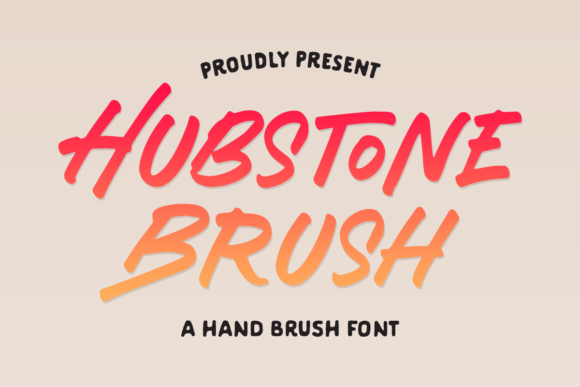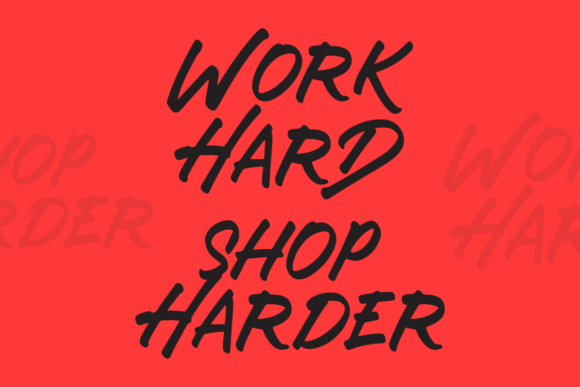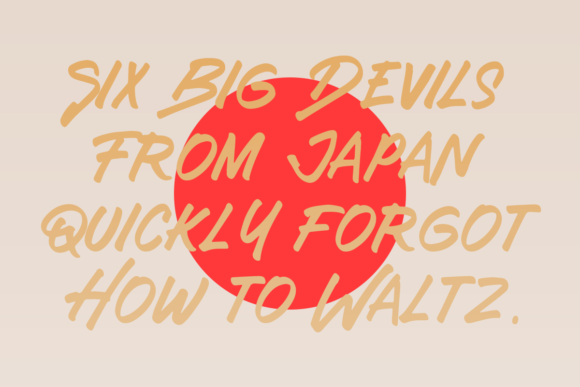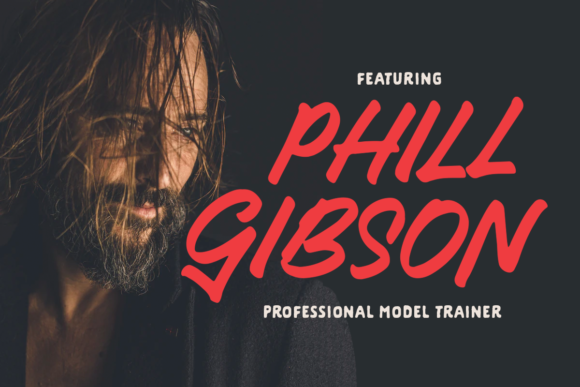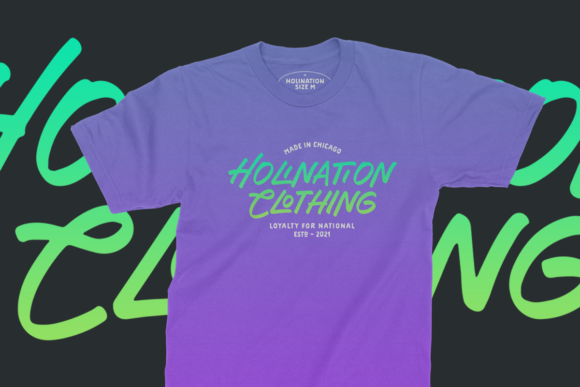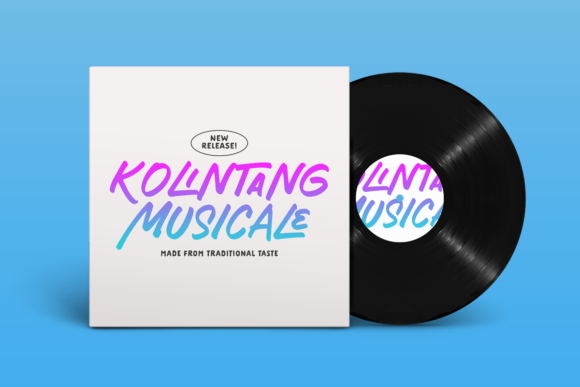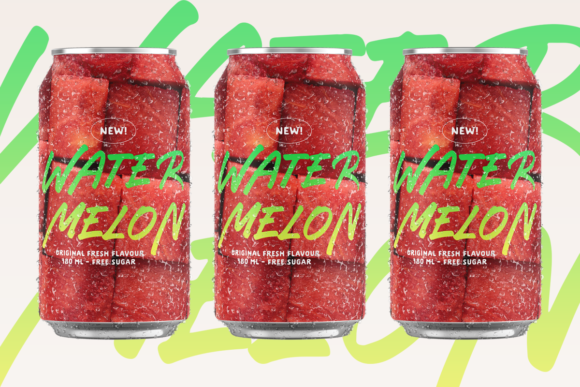
Unleash the Urban Vibes: Elevate Your Designs with Hubstone Brush Font
Have you ever stared at a blank canvas, waiting for the perfect font to spark your creativity? That’s exactly what happened to me last week, and I stumbled upon a game-changer – the Hubstone Brush Font. Its unique blend of urban charm and modern flair instantly captured my attention, and I knew I had to learn more.
Hubstone Brush Font is a cool, urban-styled, brushed display font that brings any design to life. Whether you’re working on a casual blog post, a social media campaign, or a flyer for a local event, this font adds a touch of sophistication and playfulness that’s hard to resist. As a designer, you’ll appreciate the versatility and expressiveness of Hubstone Brush Font, making it an invaluable addition to your toolkit.
Hubstone Brush Font Key Features
- Font Family: Hubstone Brush Font is a hand-drawn, brush-style font that offers a unique and creative look for various designs.
- Character Set: The font includes a wide range of characters, including uppercase and lowercase letters, numbers, punctuation marks, and special characters.
- Unique Characteristics: The font’s brush-style design and subtle imperfections give it a hand-crafted look, adding a touch of personality to any design.
Hubstone Brush Font Review
Overall, I think the Hubstone Brush Font has some great qualities that make it a solid choice for designers. ✨ Its unique, hand-drawn feel gives it a lot of character and personality, which can really make your designs stand out.
Here are some of the things I think work well:
- ✨ The font’s irregularities and imperfections add a touch of humanism that’s hard to replicate with more precise fonts.
- ✨ The font is highly customizable, with a wide range of weights and styles to choose from.
- ✨ The font is also highly legible, even at smaller sizes, which is essential for any design project.
- ⚠️ The font may not be suitable for projects that require a high level of precision or uniformity, such as technical writing or financial documents.
- ⚠️ The font’s unique feel may not be to everyone’s taste, and some users may find it distracting or hard to read.
Overall, I think the Hubstone Brush Font is a great choice for designers who want to add some personality to their projects. Just be aware of its limitations and make sure it’s the right fit for your specific needs.
Hubstone Brush Font is ideal for:
1. Creating hand-drawn or watercolor-style text.
2. Adding a touch of elegance to invitations, wedding designs, or other special occasion graphics.
3. Creating custom logos or branding materials.
Alternatives to Hubstone Brush Font for Designers
Pacifico is a beautiful, elegant script font that works well for luxury brands, weddings, and other high-end designs. It’s ideal for use in logos, headings, and body text where a touch of sophistication is needed.
Pacifico and Hubstone Brush Font share a similar script style, but Pacifico has a more refined and polished look. While Hubstone Brush Font has a more distressed, vintage feel, Pacifico is more modern and sleek.
Great Vibes is a fun, energetic script font that’s perfect for creative agencies, tech startups, and other forward-thinking brands. It’s great for use in headings, titles, and body text where a playful, dynamic feel is needed.
Great Vibes and Hubstone Brush Font share a similar playful vibe, but Great Vibes is more modern and trendy. While Hubstone Brush Font has a more vintage feel, Great Vibes is more contemporary and edgy.